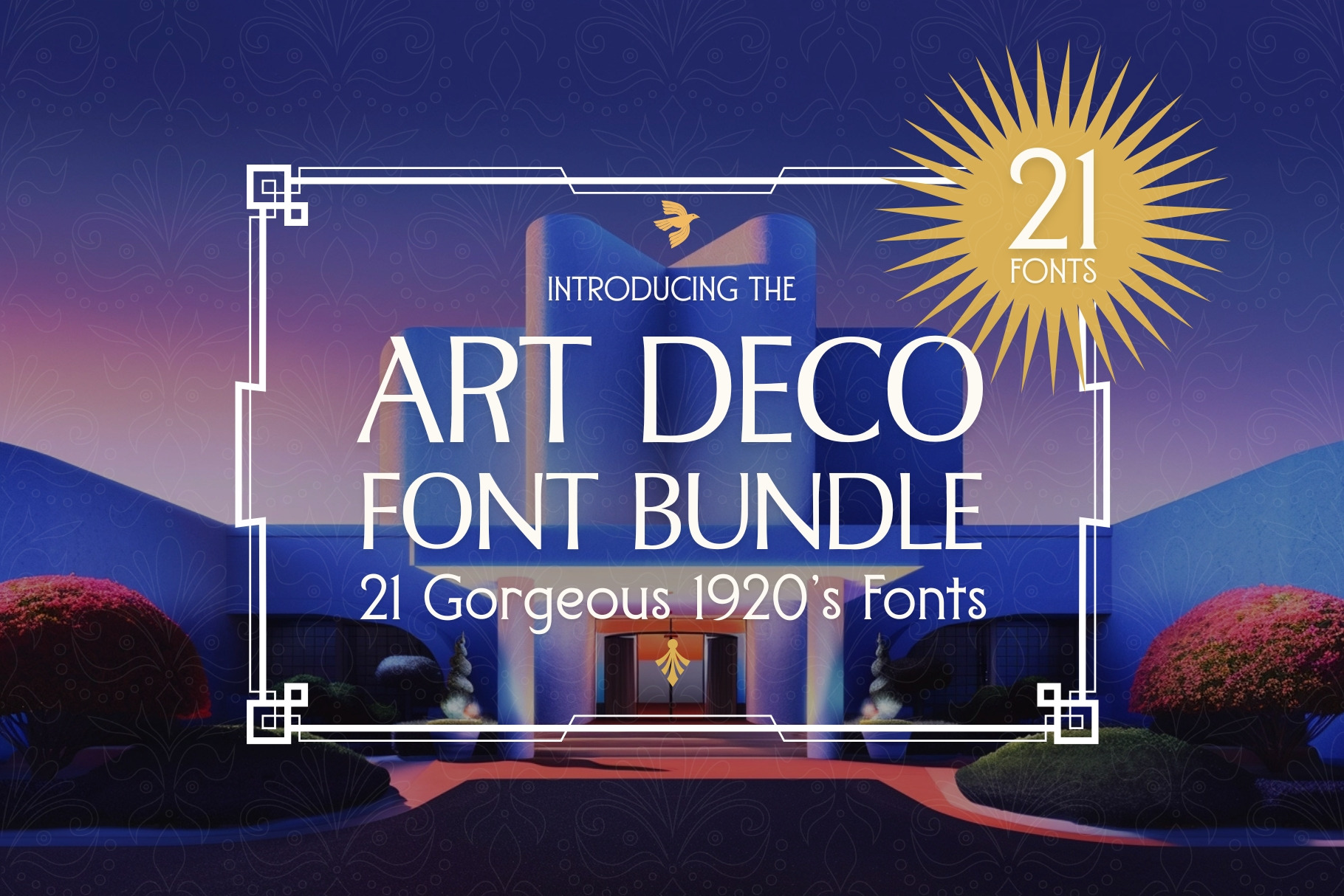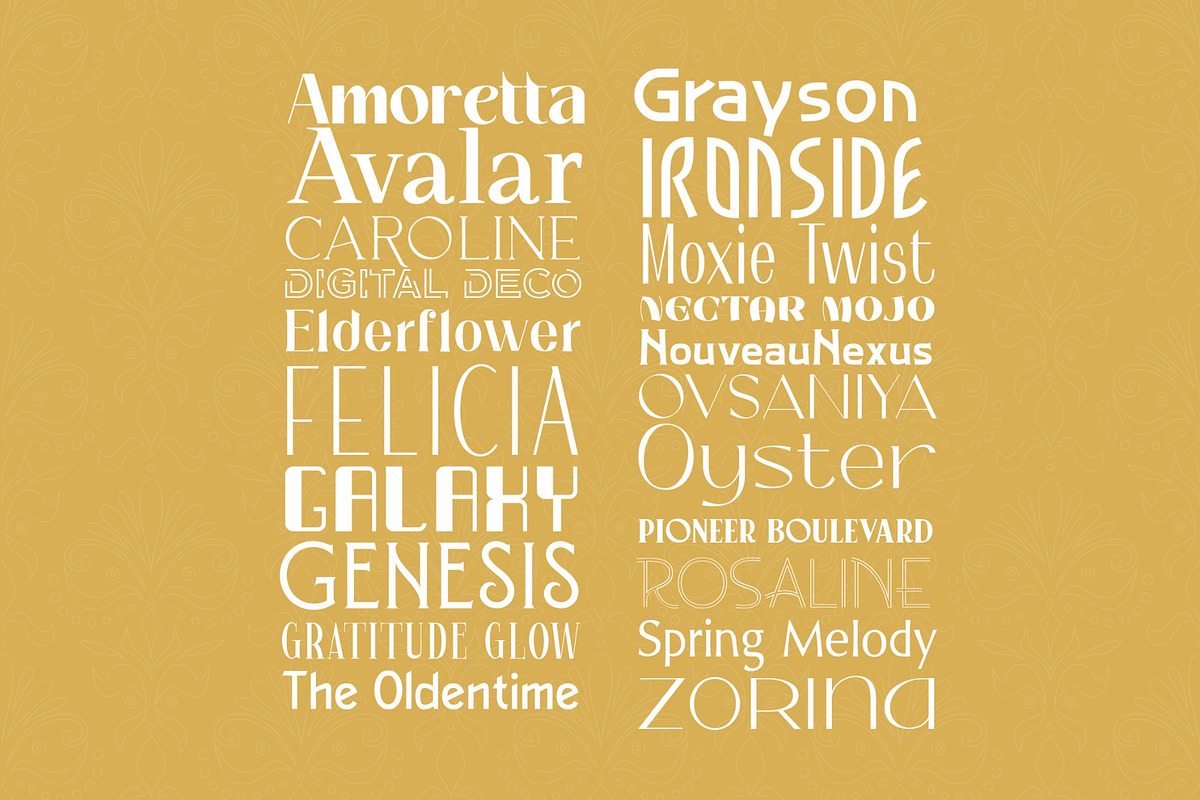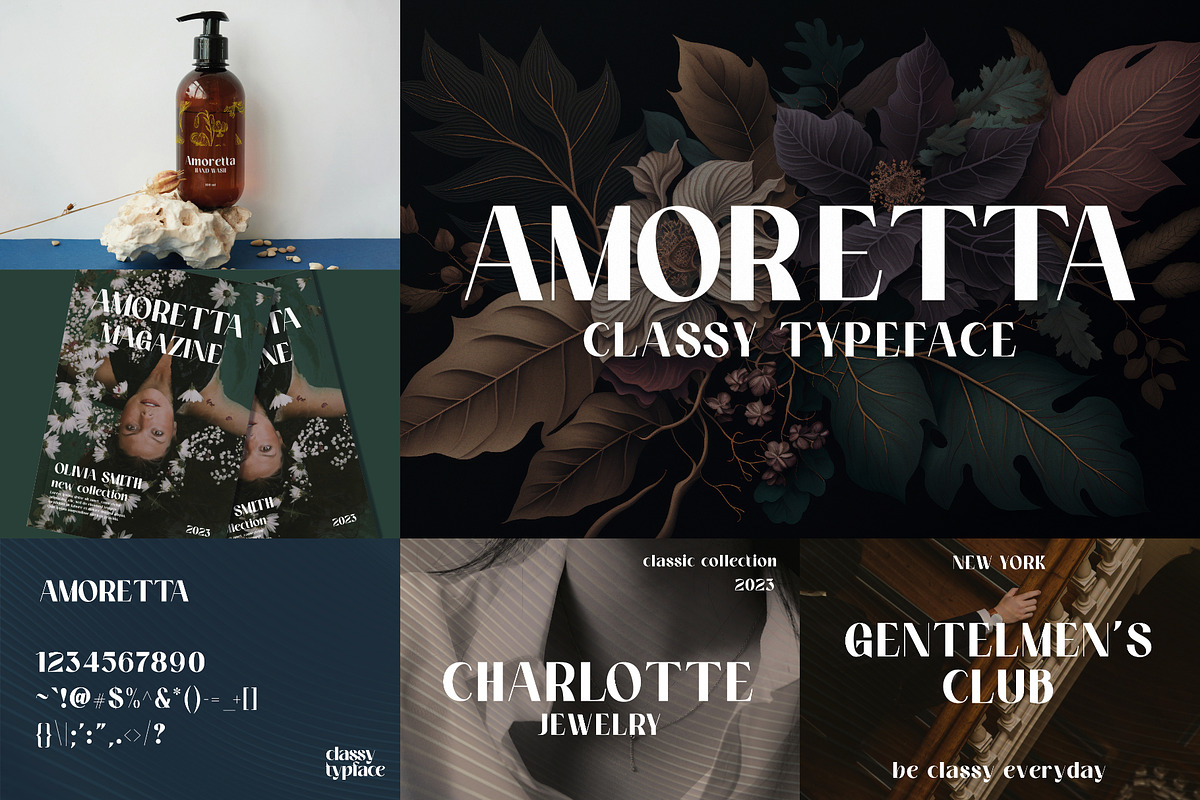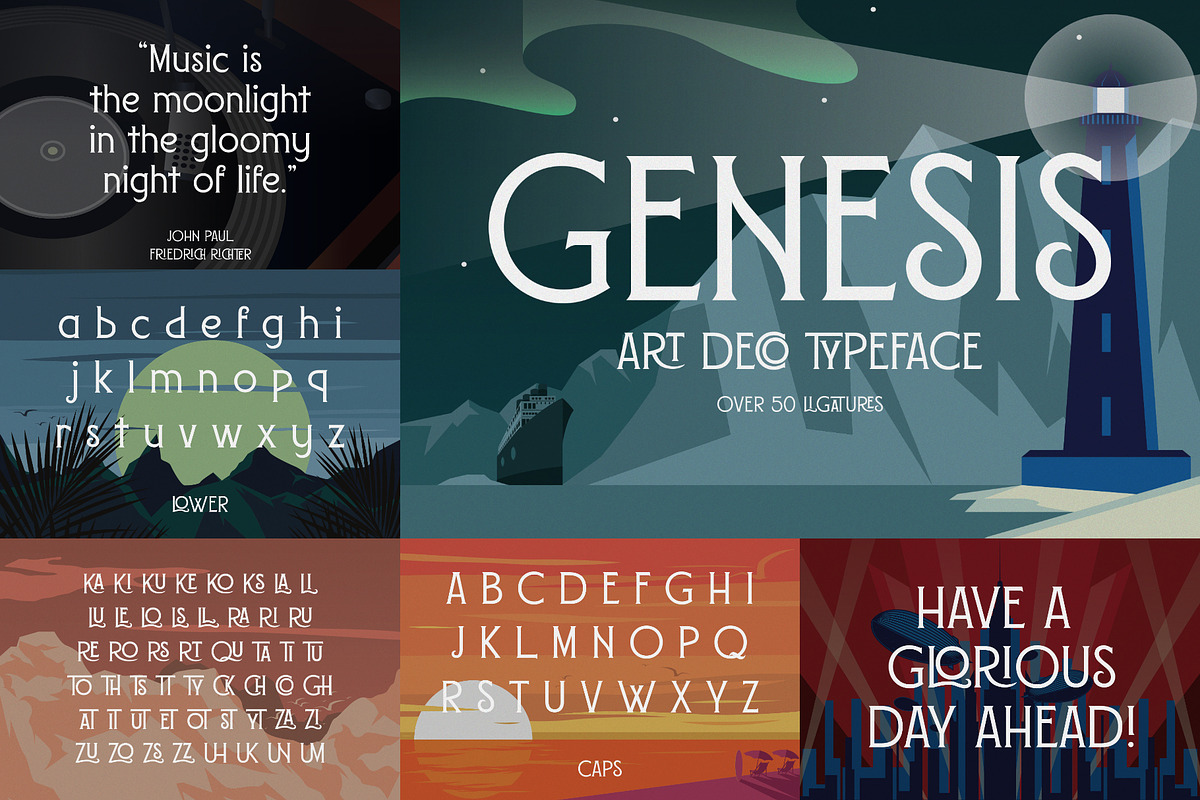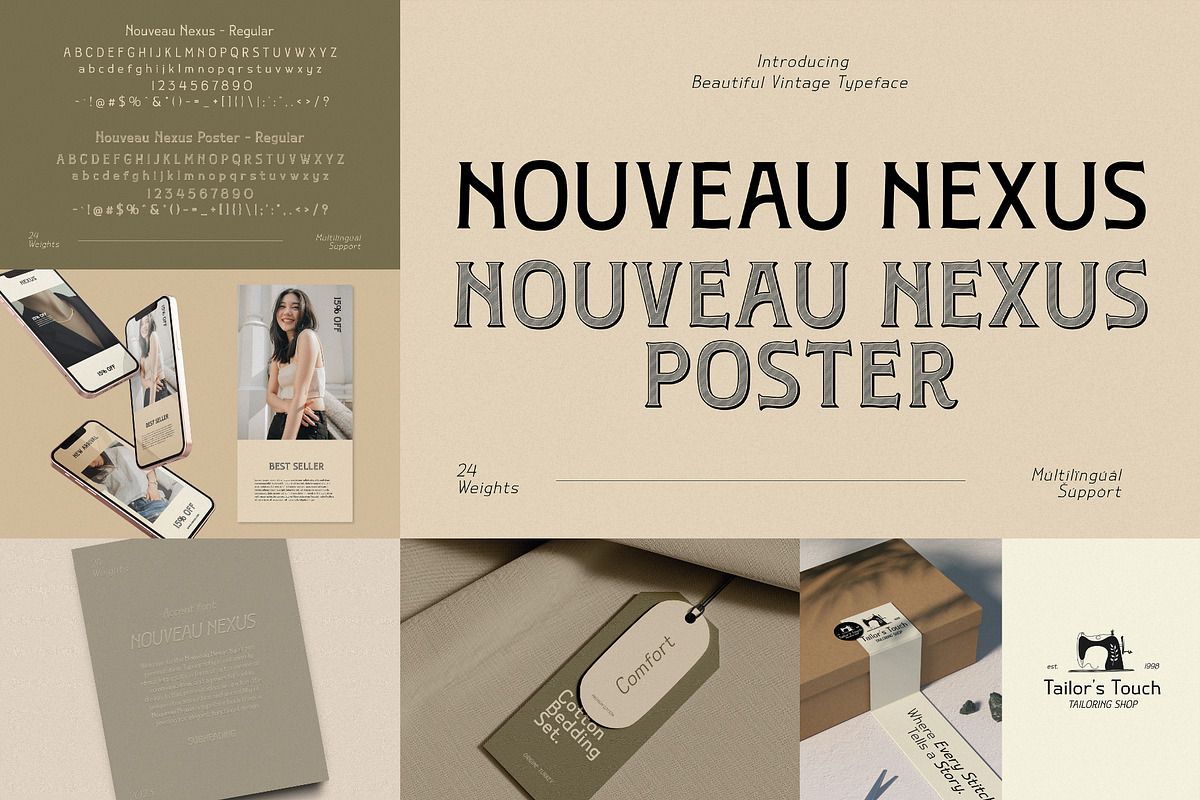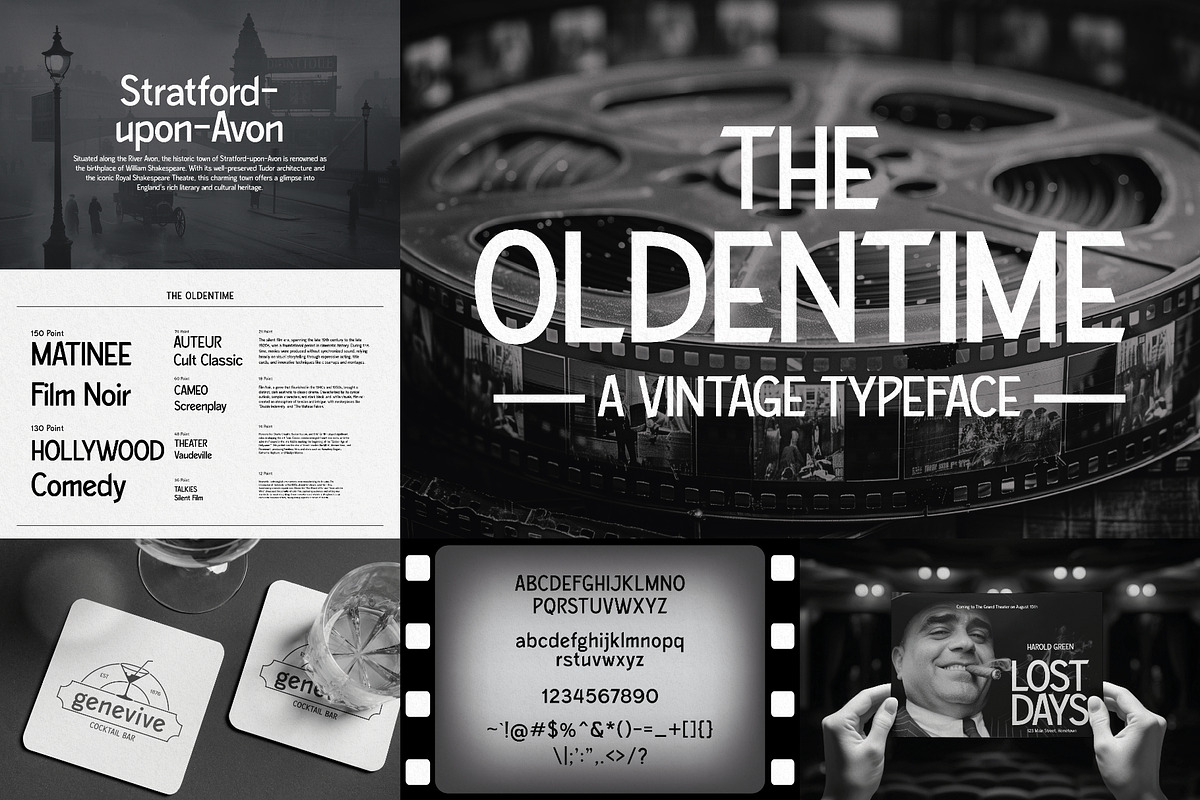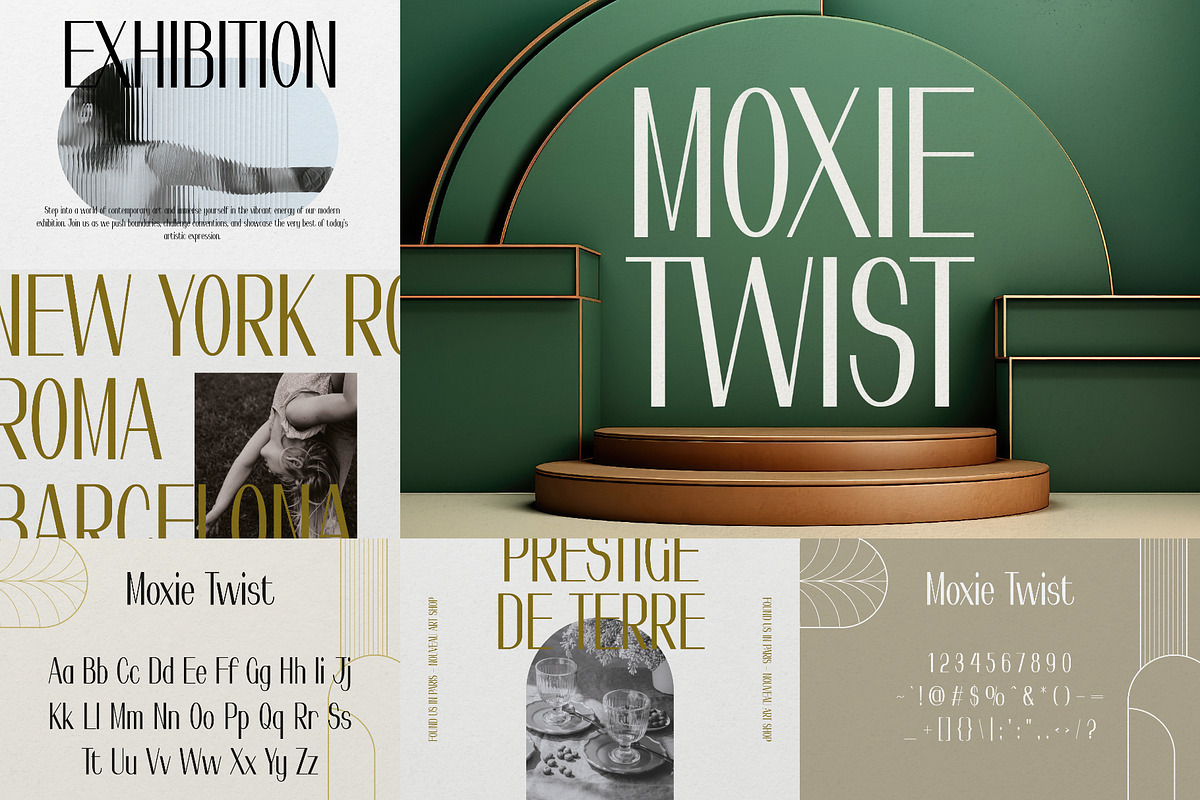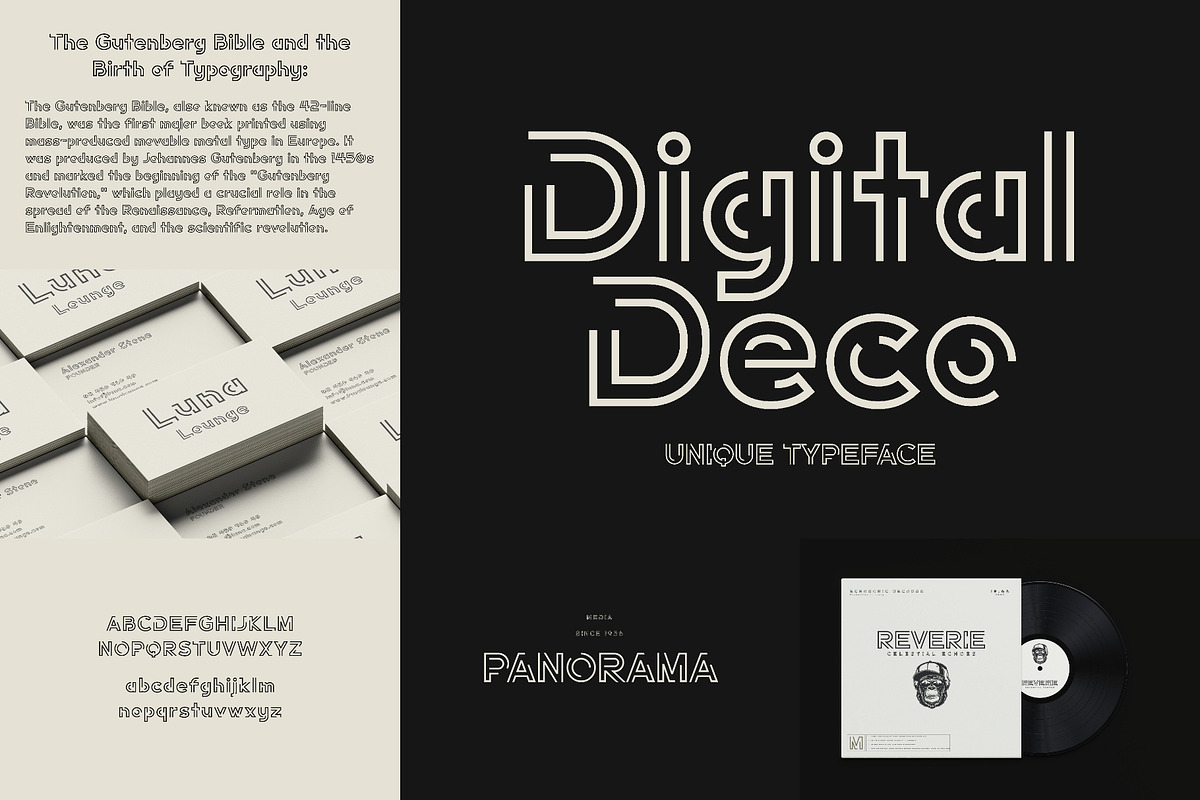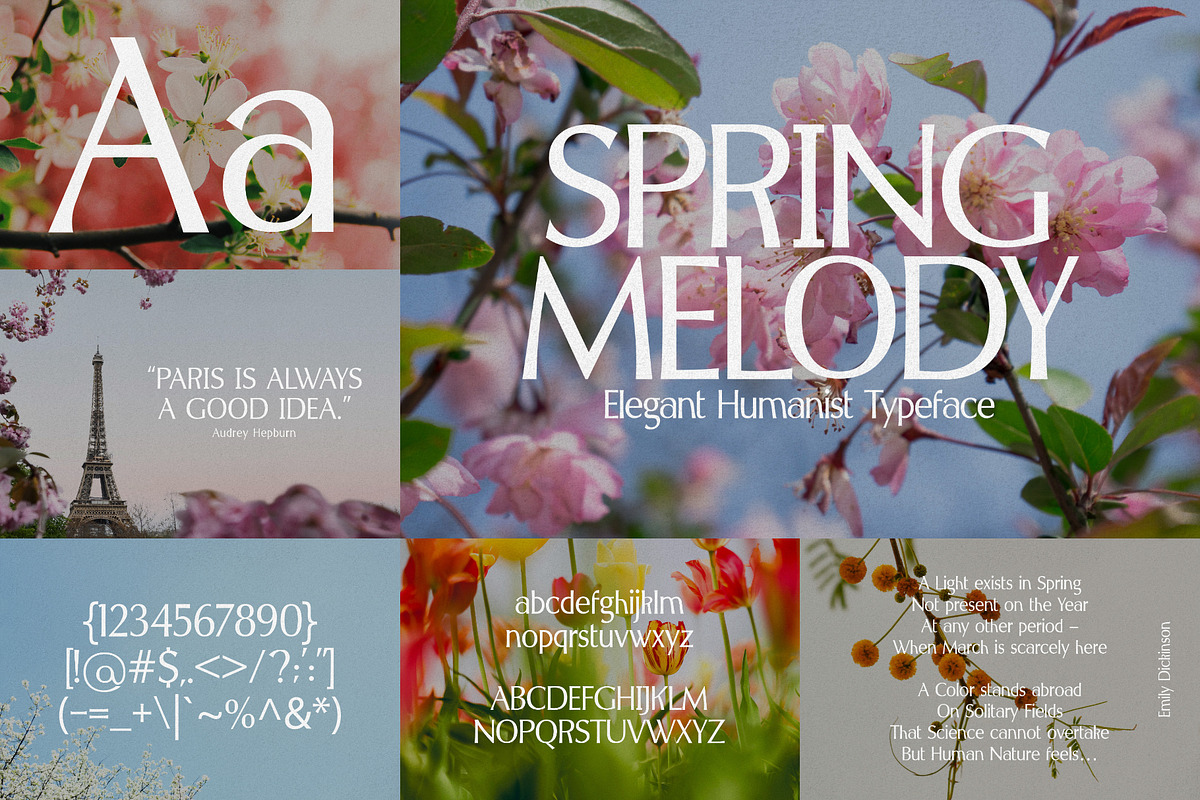
Art Deco Font Bundle (21 Fonts!)
Step into the golden age of glamour, elegance, and bold design with The Art Deco Font Bundle – a stunning collection of 21 meticulously crafted fonts inspired by the iconic style of the 1920s and 1930s.
Whether you're designing luxurious invitations, branding for high-end products, dazzling posters, or vintage-inspired artwork, this bundle is your golden ticket to the timeless charm of the Jazz Age. Every font captures the essence of the Art Deco movement – geometric elegance, opulent curves, and sophisticated flair.
What’s Inside:
- 21 Gorgeous Art Deco-Inspired Fonts
- A Range of Styles: Sans-serifs, Serifs, Decorative, Display
- Perfect for Posters, Branding, Invitations, Packaging & More
These fonts are more than just letters – they’re a tribute to an era of innovation, luxury, and artistic revolution. Whether you're channeling the glitz of Gatsby or the elegance of vintage Paris, The Art Deco Font Bundle gives you the tools to craft show-stopping designs with style and sophistication.
Make a statement. Design with decadence. Elevate your next project with the unforgettable charm of Art Deco.